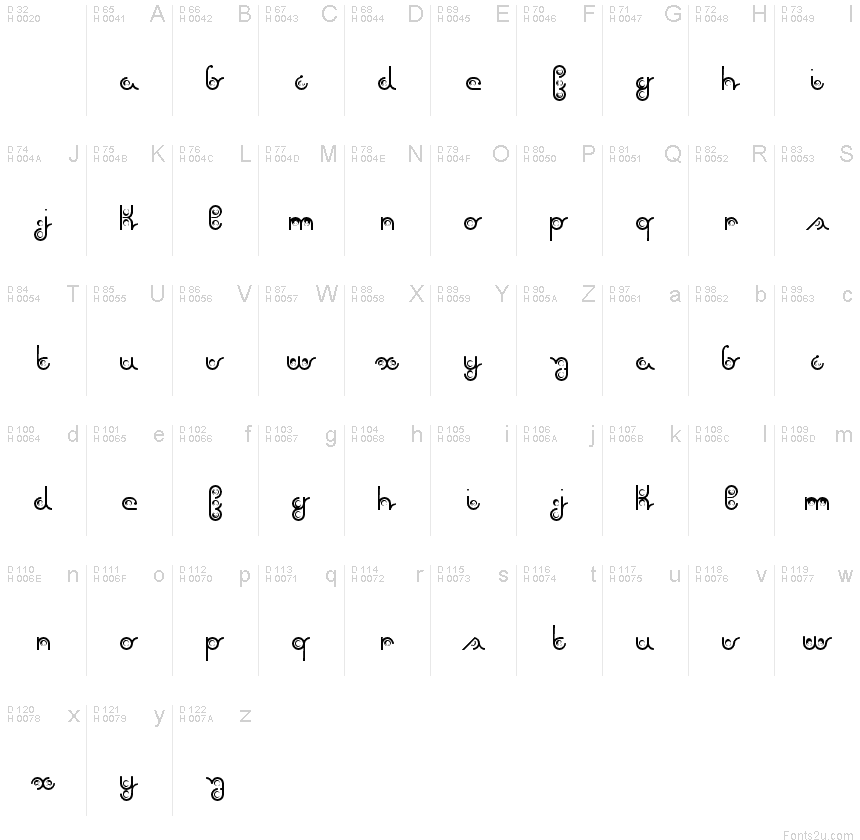
Again by dker is a free Thai-inspired display font with rounded continuous strokes and a playful looped construction. Repeated inner rings turn many letters into compact ornaments. Tall rising strokes add a lively vertical accent.
The lettering can create a decorative title treatment for restaurant branding or festival posters. Its curling forms also suit food packaging and travel graphics built around Thai cultural themes. In publishing, it can give cookbook covers and cultural feature pages a recognizable illustrated motif.